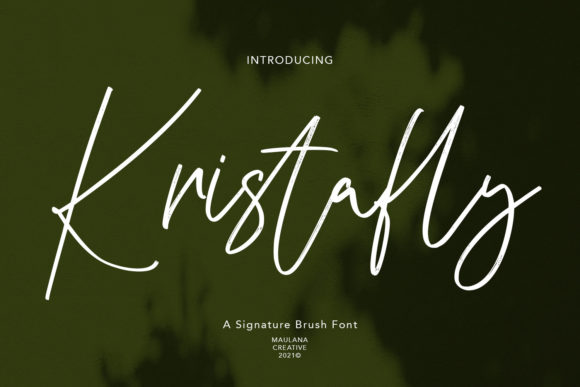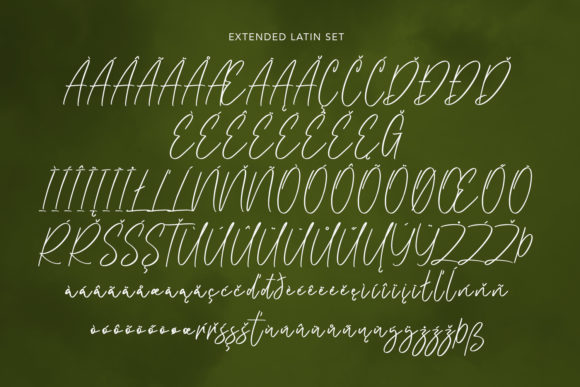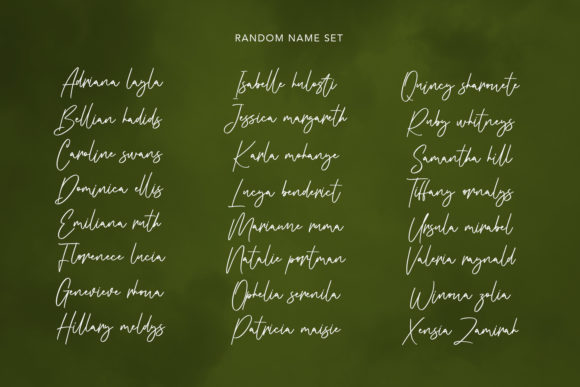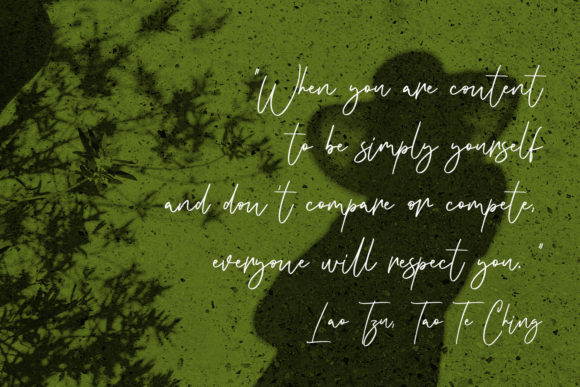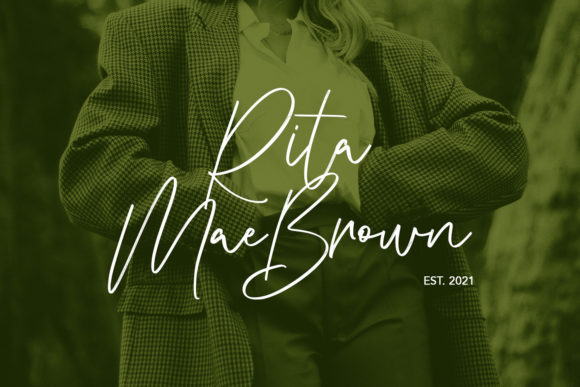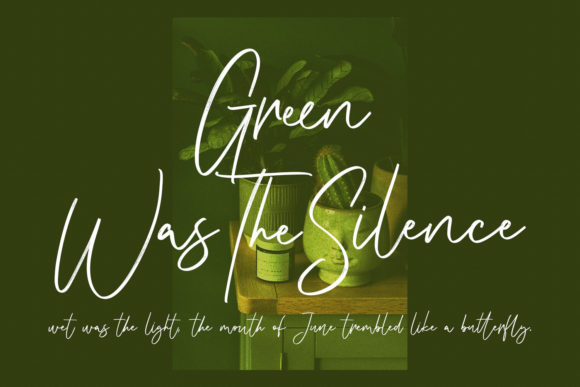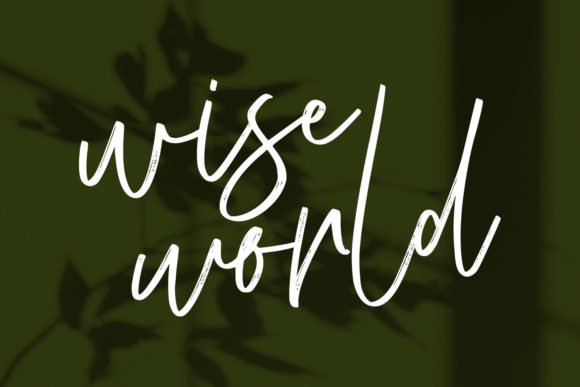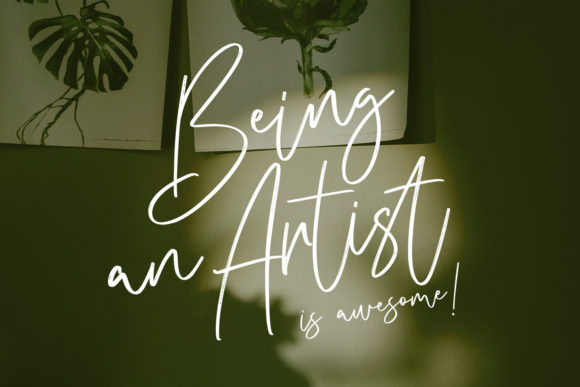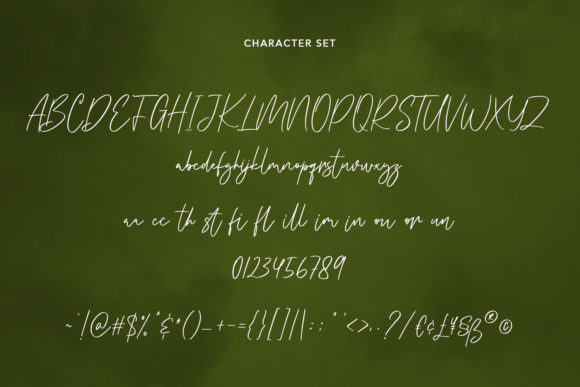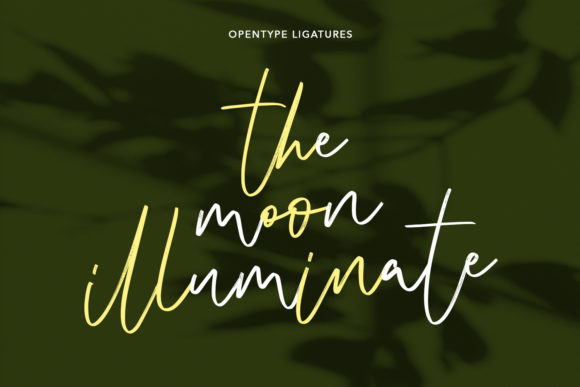
Kristafly Font
About Kristafly Font
Kristafly is a flowing, fashionable, and delicate script font that effortlessly adds a touch of luxury to any design project. Its meticulously crafted letterforms bring a refreshing and beautiful look to your designs. Whether you’re creating invitations, branding materials, or any other creative endeavor, Kristafly is the perfect choice.
With its elegant and fluid strokes, Kristafly exudes a sense of sophistication and style. The graceful curves and intricate details of each letter make it a standout font that captures attention and leaves a lasting impression.
Designed with meticulous attention to detail, Kristafly offers a seamless and harmonious flow between characters. The smooth connectivity creates a visually pleasing rhythm that enhances the overall aesthetic of your design.
Kristafly is versatile and adaptable, making it suitable for a wide range of projects. It complements fashion, beauty, and lifestyle brands, as well as editorial layouts and luxury products. Whatever your creative vision may be, Kristafly adds that extra touch of elegance and refinement.
In summary, Kristafly is a script font that combines flow, fashion, and delicacy. Its luxurious appeal and refreshing look make it a perfect choice for those seeking to elevate their designs. Embrace the beauty of Kristafly and let it bring a touch of luxury spark to your next creative endeavor.